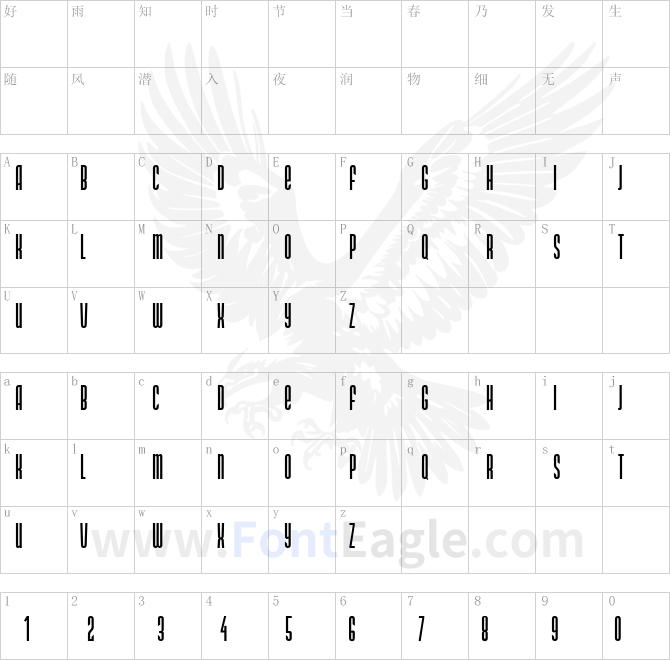
- Font name:DS Narrow
- Font Subfamily:Extra-condensed Medium
- Font Subfamily ID:DubinaNikolay/D-Studio(Moscow): DS Narrow Extra-condensed Medium: 2001
- Font Full Name:DS Narrow Extra-condensed Medium
- Font Version:Version 1.0; 2001; initial release
- Postscript:DSNarrow-Extra-condensedMedium